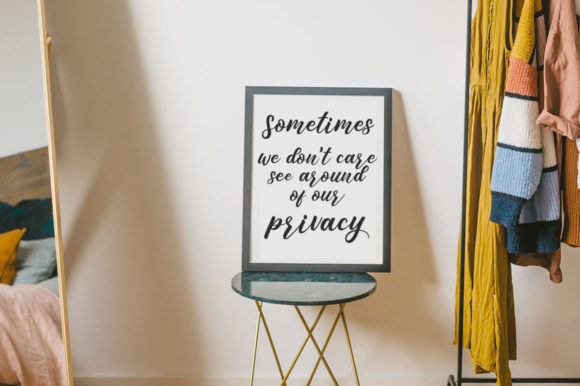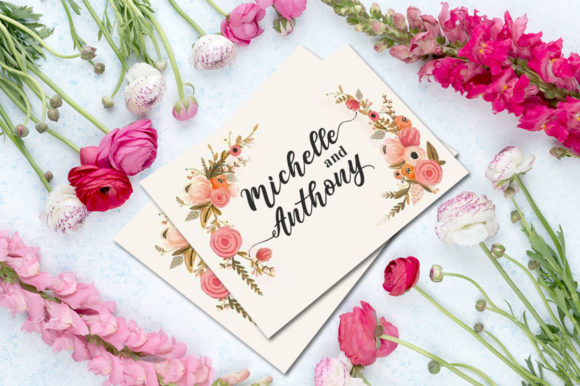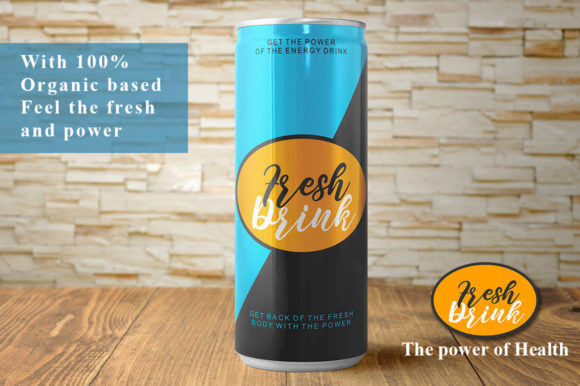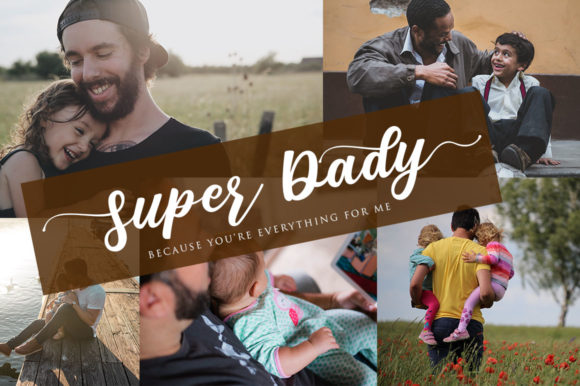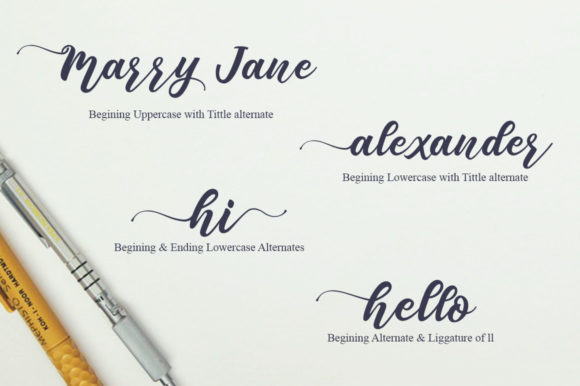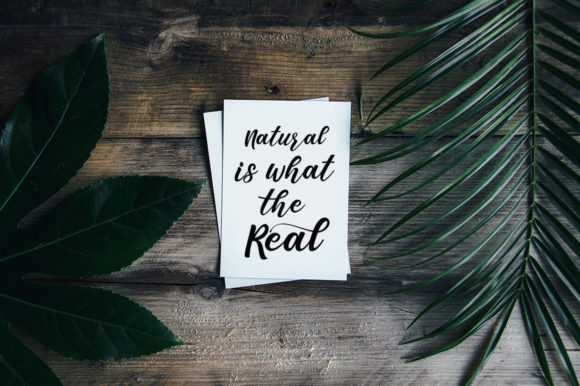
Introduction to Senada Font Font
Fonts play a crucial role in design, and the Senada Font font is a typeface that brings both character and versatility to any project. Whether you’re working on a branding project, a website, or a print design, the Senada Font font offers a unique style that can elevate your work.
Senada is a striking and charming handwritten font, full of authenticity.
Get inspired by its unique feel, and turn any design project into a stand out .
Key Features of Senada Font Font
Why Choose Senada Font Font?
The Senada Font font is more than just a typeface – it’s a design tool that helps you communicate your message with style and clarity. Its unique character set and versatile design make it suitable for a wide range of applications, from elegant invitations to bold headlines.
With its carefully crafted letterforms and balanced proportions, the Senada Font font ensures readability and visual appeal across all mediums.
What makes Senada Font font special?
The Senada Font font stands out with its unique design, exceptional readability, and versatility across various design applications.